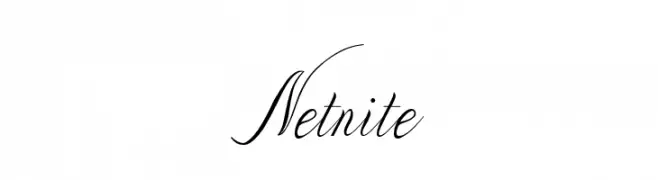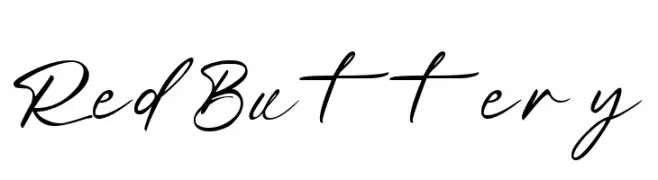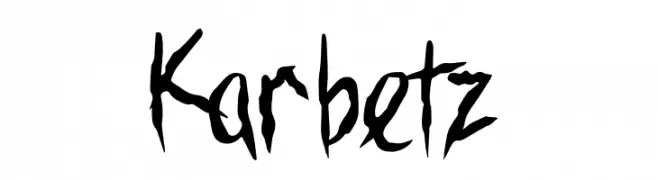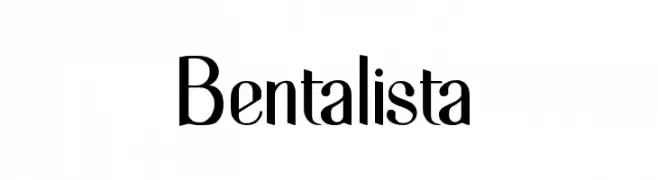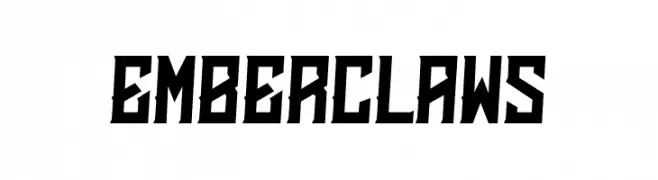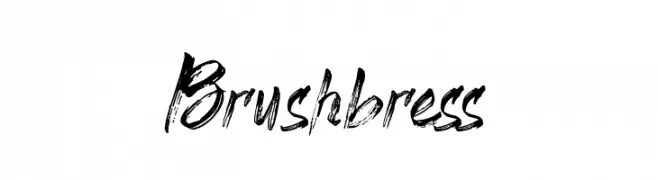
A bold, geometric font with a futuristic and angular design.
A bold, expressive handwritten font with brush-like strokes.
An elegant script font with high contrast and ornate flourishes.
A playful, handwritten font with bold, rounded strokes and a whimsical style.
A cursive, handwritten font with elegant, flowing strokes.
A jagged, edgy font with a hand-drawn, rebellious style.
A modern, elegant font with tall, narrow letterforms and subtle serifs.
A bold, angular font with a geometric and aggressive style.
A bold, angular Gothic-inspired font with a dramatic presence.
A bold, brush-style font with dynamic, hand-painted strokes.